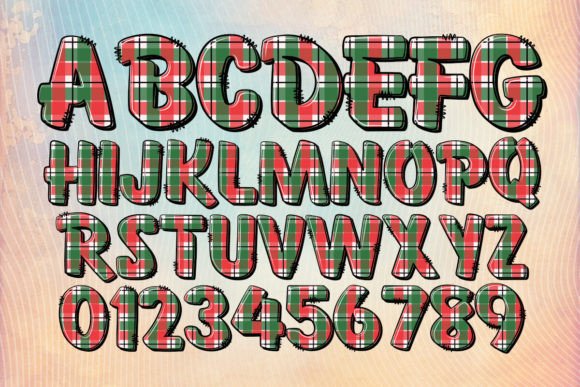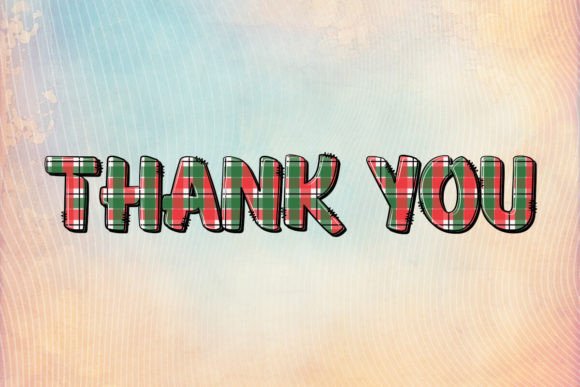
Deck the Halls with the Perfect Font
Have you ever sat down to create the perfect holiday card, only to find yourself stuck in a design rut? The pressure to make it special for loved ones can be overwhelming. But what if you had a secret weapon to make your messages shine? Enter the Christmas Tartan Font, a delightful typeface inspired by classic holiday textiles that exudes warmth and coziness.
Designed to bring a sense of love and family bonding to your designs, this fabric font seamlessly unifies traditional and contemporary elements to spread the charm of yuletide celebrations. Whether you’re a seasoned designer or a DIY enthusiast, the Christmas Font is a valuable addition to your toolkit. Its versatility and unique aesthetic make it an ideal choice for creating heart-warming messages, season’s greetings, and stocking stuffer tags that will leave a lasting impression.
Christmas Font Key Features
- Font Family: A festive and playful font, perfect for holiday designs and marketing materials.
- Size: The font family includes multiple weights, ranging from Light to Bold, to cater to different design needs.
- Unique Characteristics: Features a mix of traditional and modern elements, including intricate details and bold lines, to create a unique holiday feel.
Christmas Font Review
Overall, I’d say the Christmas Font is a decent addition to any festive design project. Here are a few things that caught my eye:
- ✨ The font’s use of traditional holiday colors and ornaments is a nice touch. It immediately conveys the festive spirit.
- ✨ The font’s bold and playful style works well for headings and titles, adding a fun and cheerful vibe to your designs.
However, I did encounter a few limitations:
- ⚠️ The font’s overall design feels a bit generic and lacks uniqueness. With so many festive fonts available, this one blends in with the crowd.
- ⚠️ The font’s ornamentation can sometimes feel overwhelming, making it difficult to read in certain contexts.
- ⚠️ The font’s customization options are limited, which can restrict its use in more complex design projects.
Overall, I’d say the Christmas Font is a solid choice for simple, one-off design projects. However, for more complex or unique designs, you may want to consider other options.
Tips for Getting the Most Out of Christmas Font
To get the most out of Christmas Font, use it in conjunction with festive graphics and colors. You can also use it to create a consistent brand identity for your holiday marketing materials.
Christmas Font is commonly used in holiday marketing materials such as:
- Christmas card templates
- Holiday party invitations
- Gift tags and wrapping paper
- Christmas-themed social media graphics